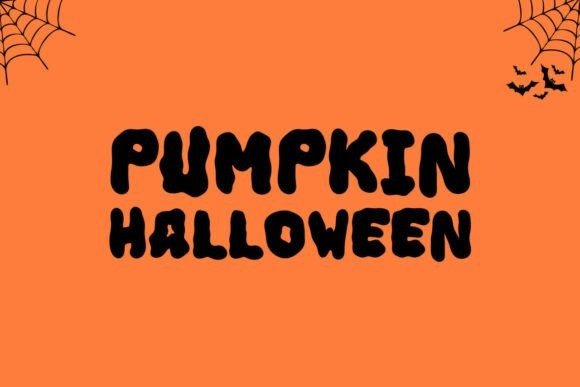
Plumpkin Font
Plumpkin Font is a chunky, cheerful display with cozy fall charm. Letters feel round and friendly. Strokes stay bold for fast reading on mobile and print. Because the shapes echo pumpkins and candy, your words look warm the instant they appear. Use it for Halloween tees, autumn signs, party invites, stickers, mugs, and Etsy thumbnails. Moreover, the plumpkin font pairs well with clean sans serifs, so layouts stay tidy and bright.
Where Plumpkin Font shines
Set short phrases like “Pumpkin Patch,” “Boo Crew,” “Hello Fall,” or a child’s name. Then add outlines, sticker borders, or soft shadows for a puffy print look. Since spacing is tuned for headlines, posters and thumbnails come together in minutes. As a result, you can launch full seasonal bundles for markets, classrooms, and family events with less editing. Plus, the rounded rhythm keeps titles clear on small tags and labels.